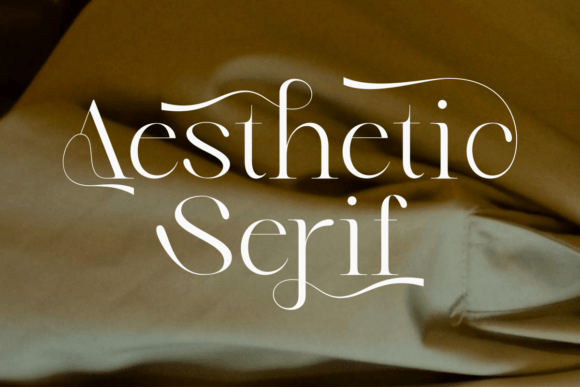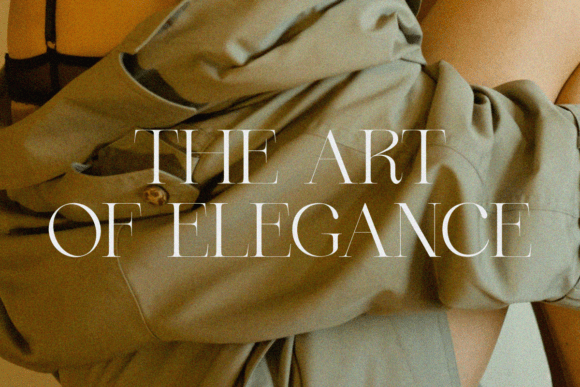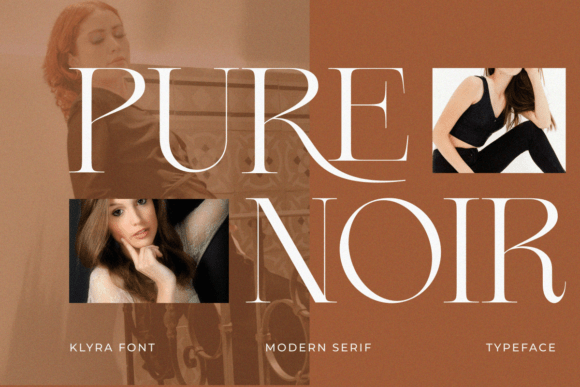
Introduction to Klyra Font
Imagine you’re working on a high-end fashion campaign, and you need a font that exudes luxury and sophistication. You’re browsing through a design resource, searching for the perfect typography to elevate your creative project. Suddenly, you stumble upon Klyra Font, and its elegant curves and high-contrast details catch your eye. You can’t help but feel a rush of excitement as you envision the beautiful typography compositions you’ll create with this refined serif font.
Klyra Font is more than just a design tool – it’s a game-changer for designers who want to bring an exclusive and artistic impression to their work. With its timeless elegance and modern luxury touch, this font is perfect for branding, editorial layouts, fashion magazines, cosmetics, packaging, wedding designs, and premium logos. Whether you’re working on a bold headline or a delicate typography composition, Klyra Font delivers a high-quality appearance that’s sure to leave a lasting impression.
Key Features of Klyra Font
- High-quality, professional font suitable for creative projects, including logos, branding, and packaging design.
- Designed with a clean, modern aesthetic, making it perfect for a wide range of creative projects, from digital to print.
- Part of a larger font family, offering a range of styles and weights to suit different design needs.
Honest Review: Klyra Font
I recently stumbled upon the Klyra Font, a design resource that has caught my attention. With a transparent background, it’s a versatile tool for creative projects that require a modern and sleek aesthetic. The high quality of this font is evident, making it a great addition to any designer’s toolkit.
Here are some things that work well with the Klyra Font:
- ✨ Wide range of font sizes and styles, allowing for maximum flexibility in design
- ⚠️ Limited font customization options, which may not be ideal for designers who require a high degree of control
- ⚠️ Not suitable for complex typography or multi-line text
Overall, the Klyra Font is a solid choice for designers who need a clean and modern font for their creative projects. While it may not be perfect, its high quality and transparent background make it a valuable resource for designers of all levels.
Common Use Cases for Klyra Font
The Klyra Font is ideal for use in presentations, marketing materials, and creative projects. Its high-quality design and transparent background feature make it a versatile resource for designers and non-designers alike.
Is the Klyra Font suitable for print design?
While the Klyra Font is designed with digital applications in mind, it can also be used for print design. However, please note that the font’s legibility and readability may vary depending on the printing resolution and paper quality. It’s always a good idea to test the font in print before using it for a large-scale project.